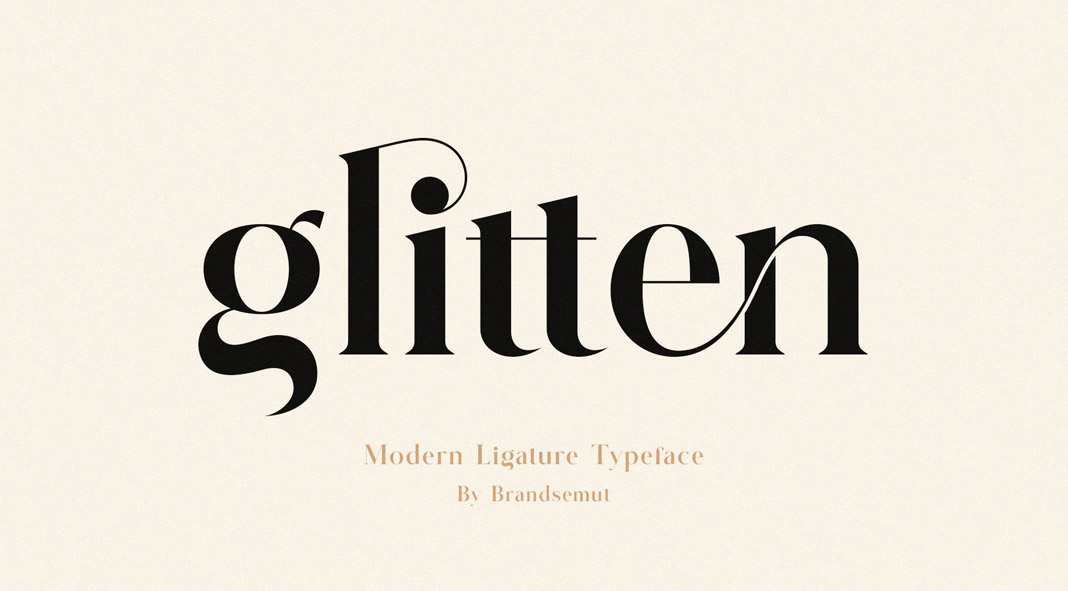
Say hello to Glitten, an elegant and classy serif typeface.
The Glitten Ligature Serif font is both modern and nostalgic at the same time. It works great for logos, magazines, or social media. Glitten’s elegant ligatures will add a unique style to your typographic work. Just look at this beauty! Using this typeface, your designs will really stand out.